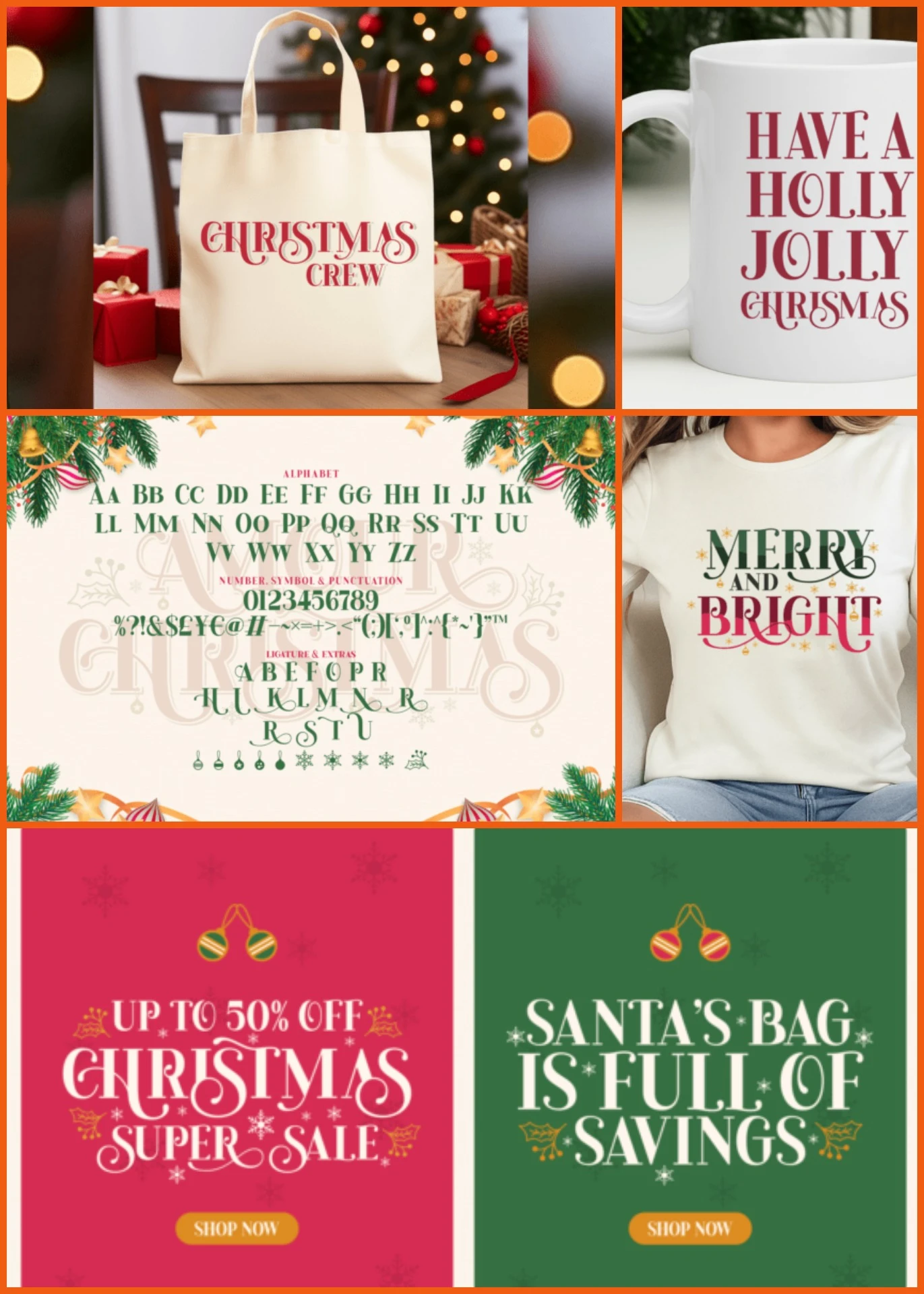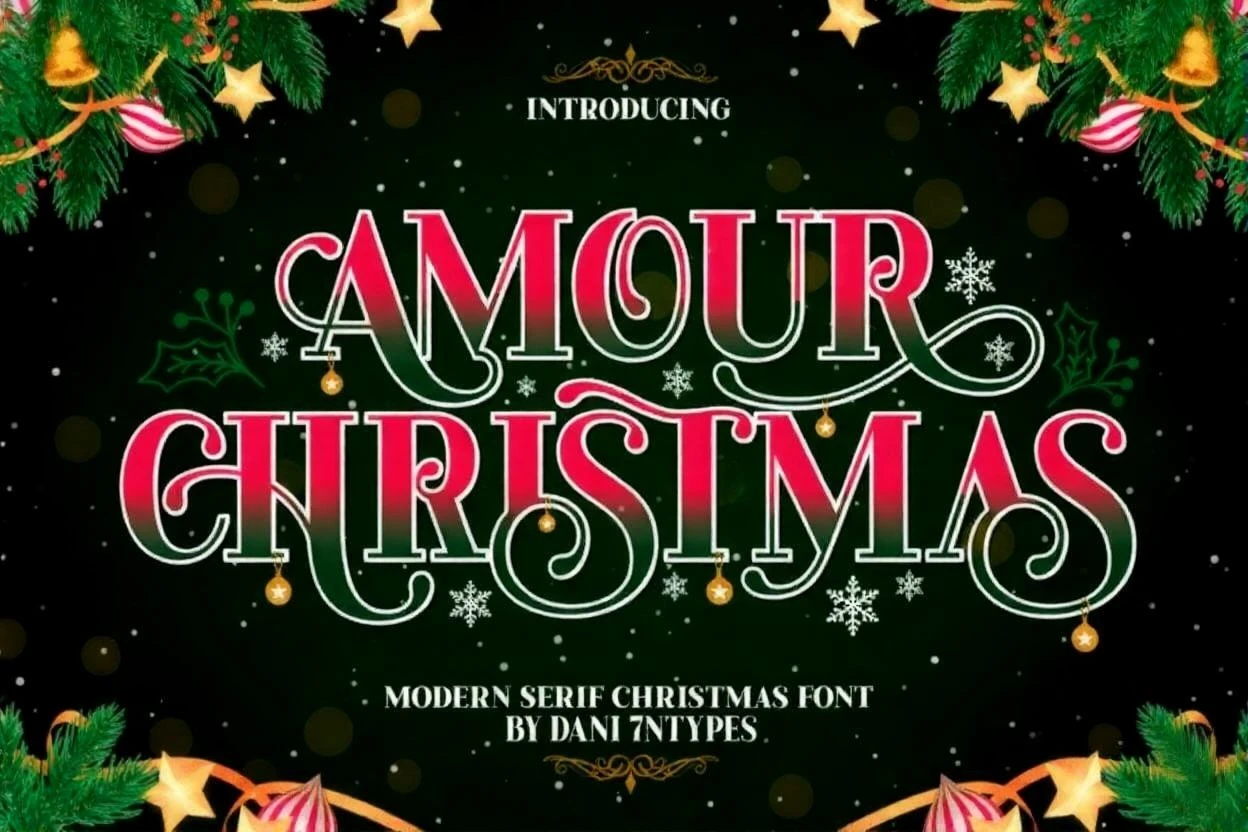
Bring festive magic to your designs with Amour Christmas Font, a modern serif Christmas typeface that blends elegance, warmth, and seasonal charm. Featuring decorative swashes, festive ornaments, and luxurious curves, this holiday font captures the joyful spirit of Christmas in every letter.
Perfect for Christmas cards, invitations, gift packaging, branding, social media graphics, and festive decor, Amour Christmas adds sophistication and sparkle to your creative projects. Its classic serif structure with playful details makes it ideal for both digital and print designs.
Perfect for:
– Christmas cards & invitations
– Holiday branding & packaging
– Greeting cards & wall art
– Logos, crafts & typography projects
Features:
– Modern serif Christmas design
– Elegant swashes & ornaments
– PUA-encoded for full access
Create timeless holiday designs full of warmth and beauty with Amour Christmas Font – the perfect blend of elegance and festive cheer.